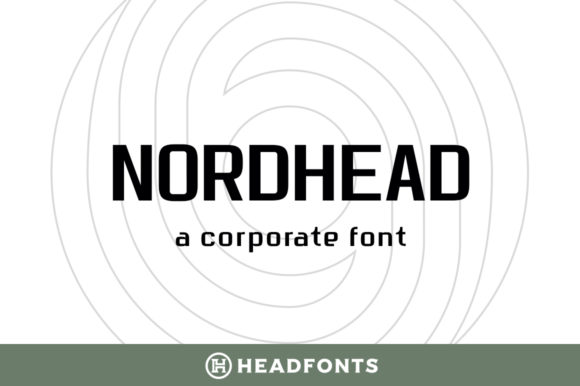
Nordhead Font
Unlock the enigmatic world of digital expression with Nordhead Font, a breathtaking sans serif masterpiece that emanates sophistication and elegance. Headfonts, the visionary creators behind this typographic gem, have meticulously crafted each letterform to evoke a sense of corporate authority, making it the ideal choice for elevating your branding endeavors.
Nordhead Font's crisp lines and minimalist aesthetics exude a timeless allure that will captivate your audience. Whether you're crafting captivating banners, eye-catching flyers, or establishing a cohesive brand identity, this font will effortlessly elevate your creations. Its versatility knows no bounds, making it an indispensable tool for designers and marketers alike.
Immerse yourself in the limitless possibilities that await with Nordhead Font. Let its sharp edges and refined curves empower your designs, leaving an unforgettable mark on every project you undertake. Embrace the power of this typographic masterpiece and unlock the full potential of your digital presence today.